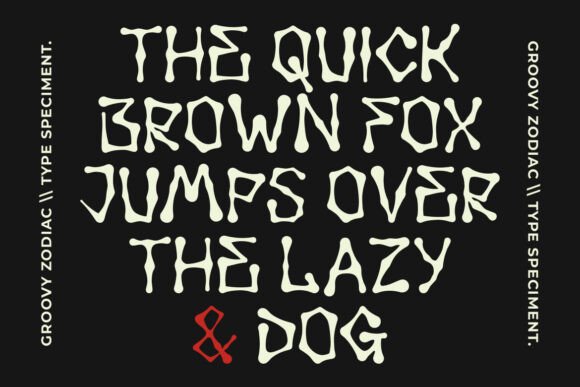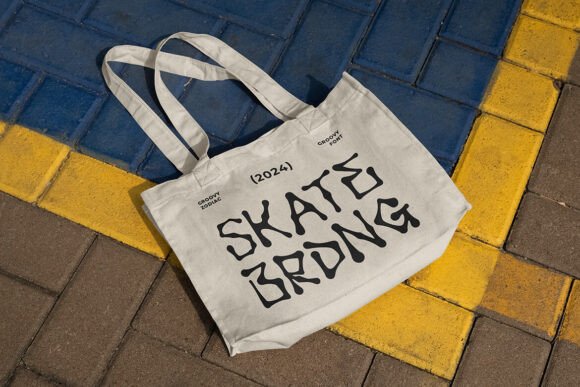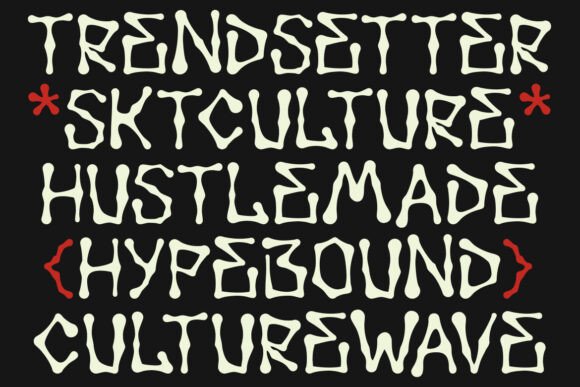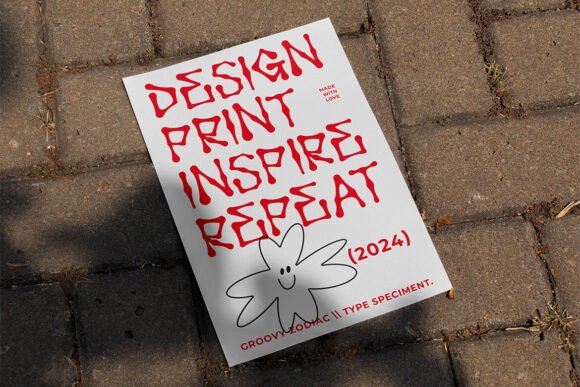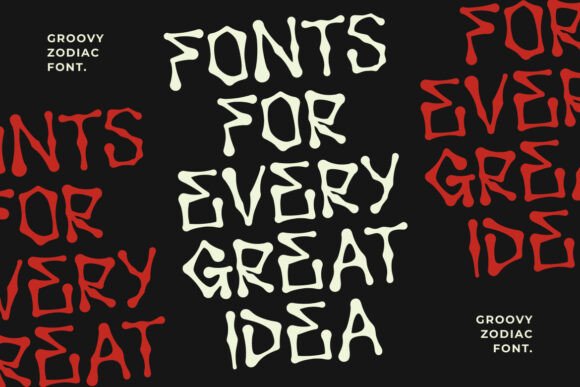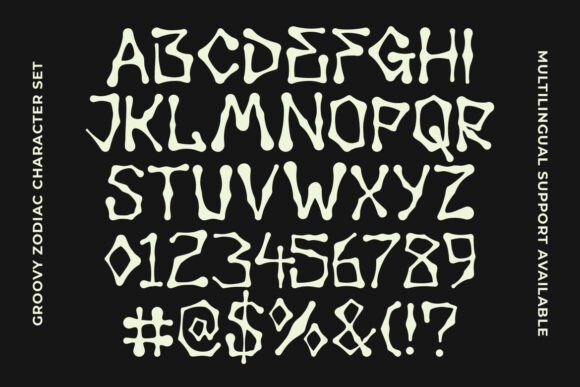
Introduction to Groovy Zodiac Font
Groovy Zodiac is a hand-drawn display font crafted to mimic the appearance of bones.
This unique font is versatile and can be used for various design purposes such as creating Halloween-themed posters, spooky party invitations, horror movie titles, gothic-themed graphics, or any project that requires a macabre and intriguing touch Its handcrafted and eerie aesthetic can add a distinctive and memorable element to a wide range of design projects.
Key Features of Groovy Zodiac Font
Why Choose Groovy Zodiac Font?